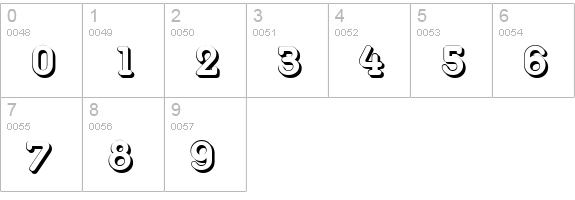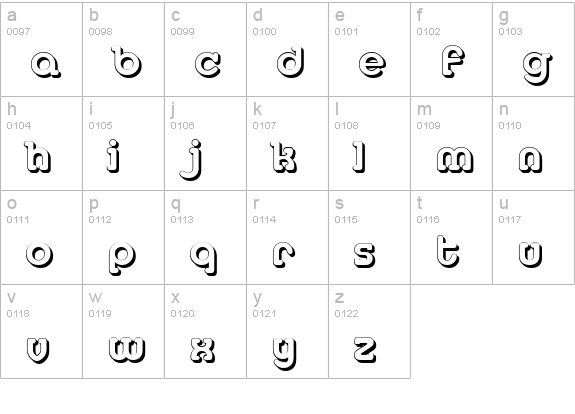
MexicoShadow-Bold Font Details
MexicoShadow-Bold is a strong, high-contrast variant in the MexicoShadow typeface family \xE2\x80\x94 well suited to headlines, attention-grabbing titles, and strong calls-to-action.
MexicoShadow-Bold font is a bold and striking typeface that exudes a sense of strength and modernity. Its sharp edges and distinct shadows create a visually captivating look that is perfect for making a bold statement in your designs. With its sleek and contemporary design, MexicoShadow-Bold is versatile and can be used for a wide range of projects, from posters to branding to web design. The best part? MexicoShadow-Bold font is available for free download at FontsMarket.com. This means you can easily access this eye-catching font and incorporate it into your projects without any cost. Whether you're a designer looking to add a touch of flair to your work or a business owner seeking a unique font for your branding, MexicoShadow-Bold is the perfect choice. Download it now and elevate your designs with this stunning and impactful typeface.